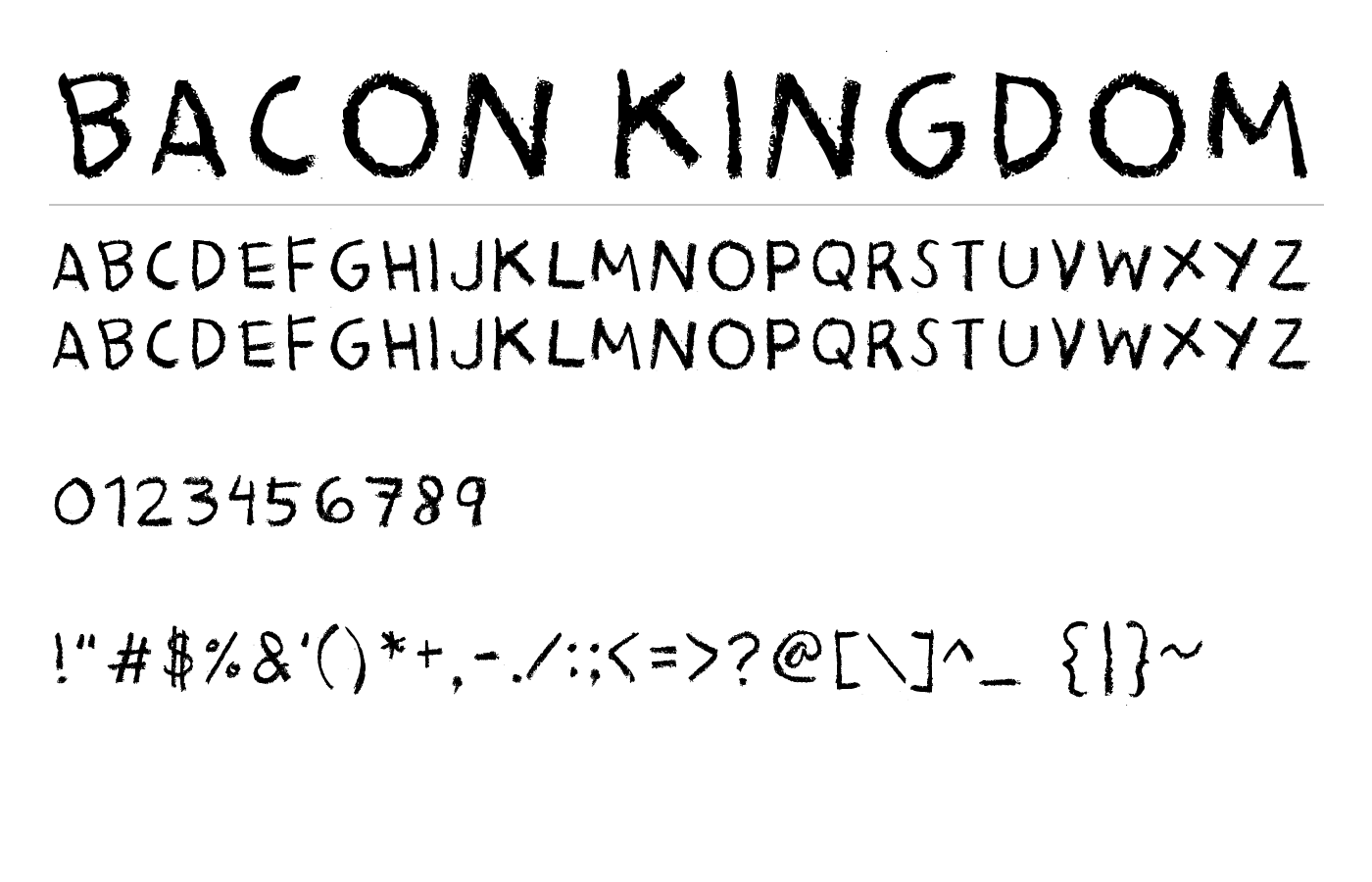
Bacon Kingdom is a quirky, hand-drawn sans serif font with a playful and slightly rough texture that gives it a casual, organic feel. Its uneven strokes and irregular shapes make it perfect for creative, informal designs like kids’ projects, comic titles, or fun branding where a friendly, handmade touch is desired. This font works best in headlines or logos that want to stand out with a unique, approachable personality.
Bacon Kingdom Font
About Bacon Kingdom Font
| Font family | Bacon Kingdom Font |
| Designer | Denise Bentulan |